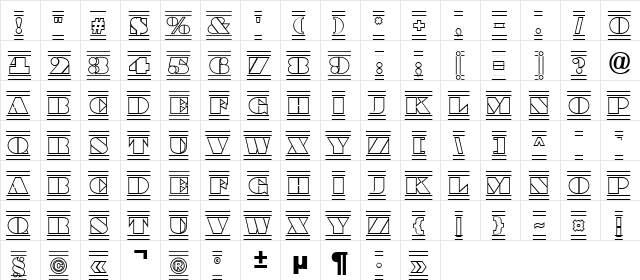
a_BraggaTitulOtlDcFr Regular
Design Context for a_BraggaTitulOtlDcFr Typeface
a_BraggaTitulOtlDcFr is a composed and adaptable typeface that performs quietly and consistently across a wide range of design contexts.